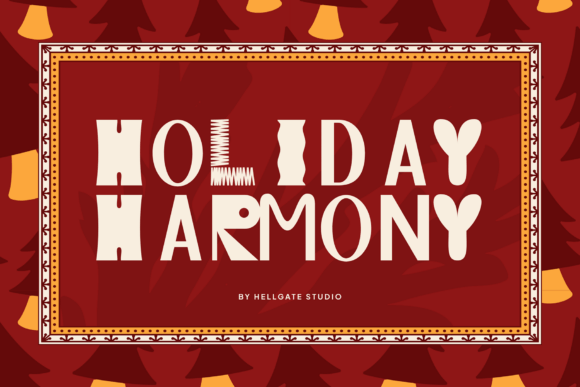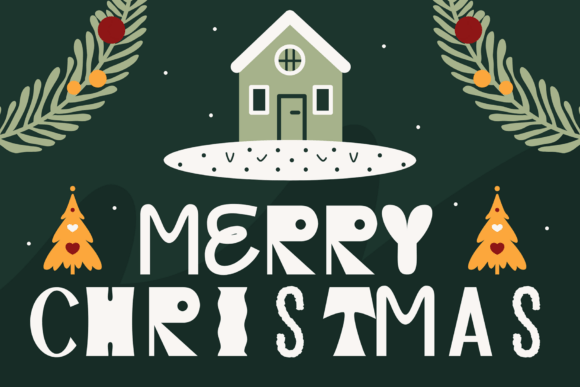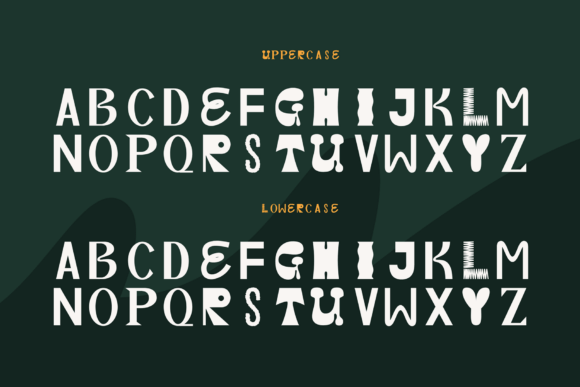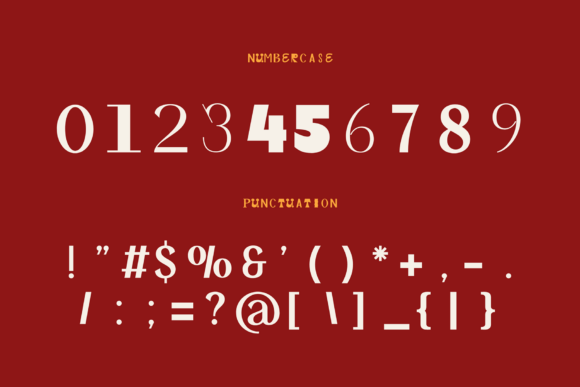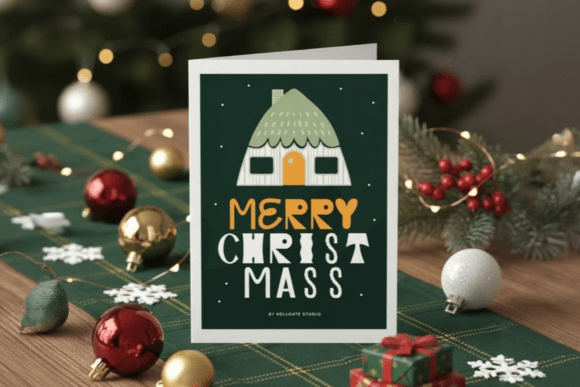
Introduction to Mass Font
Have you ever been brainstorming ideas for a creative project, flipping through design inspiration boards, and suddenly a spark of magic hits you? For designers, moments like these are what make the holiday season so special. One way to capture that magic is with the perfect font – and that’s where the enchanting Mass Font comes in.
This delightful Christmas display font combines the charm of handmade decorations with the playfulness of a festive holiday spirit. Its unique, eclectic style and bold weight make it perfect for posters, cards, stickers, and children’s holiday products. With the Mass Font, you can create high-quality, eye-catching designs that reflect your creativity and personal touch. Whether you’re working on a design project or simply want to add a dash of holiday cheer to your social media posts, this font is a valuable resource that’s sure to impress.
Honest Review: Mass Font
Mass Font